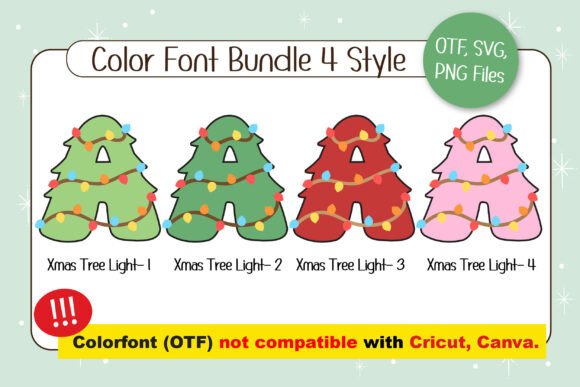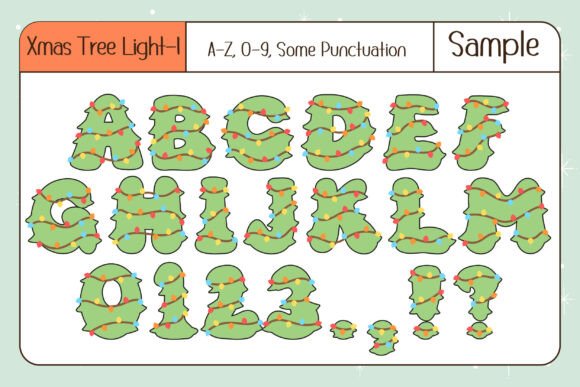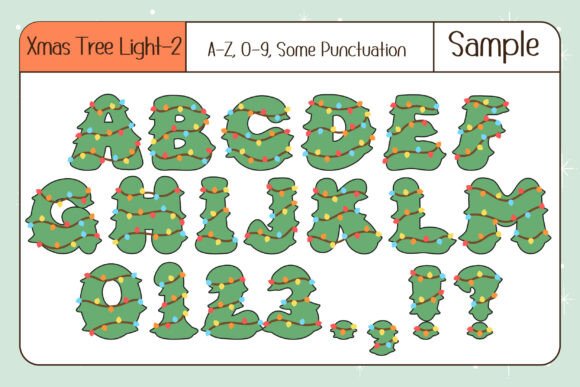
Introduction to Christmas Tree Light Font
IIntroducing โ€œChristmas Tree Lightโ€ โ€” a cheerful color font inspired by the sparkle of Christmas trees decorated with twinkling lights.
Each letter is designed to be cute, simple, and fun, perfectly capturing the joyful and cozy spirit of the season while remaining easy to use for all your creative projects Featuring 4 color font styles and 20 matching decorative doodles, โ€œChristmas Tree Lightโ€ is ideal for Christmas posters, quotes, t-shirts, banners, party invitations, stickers, scrapbook pages, DIY crafts, custom names, and so much more.
Key Features of Christmas Tree Light Font